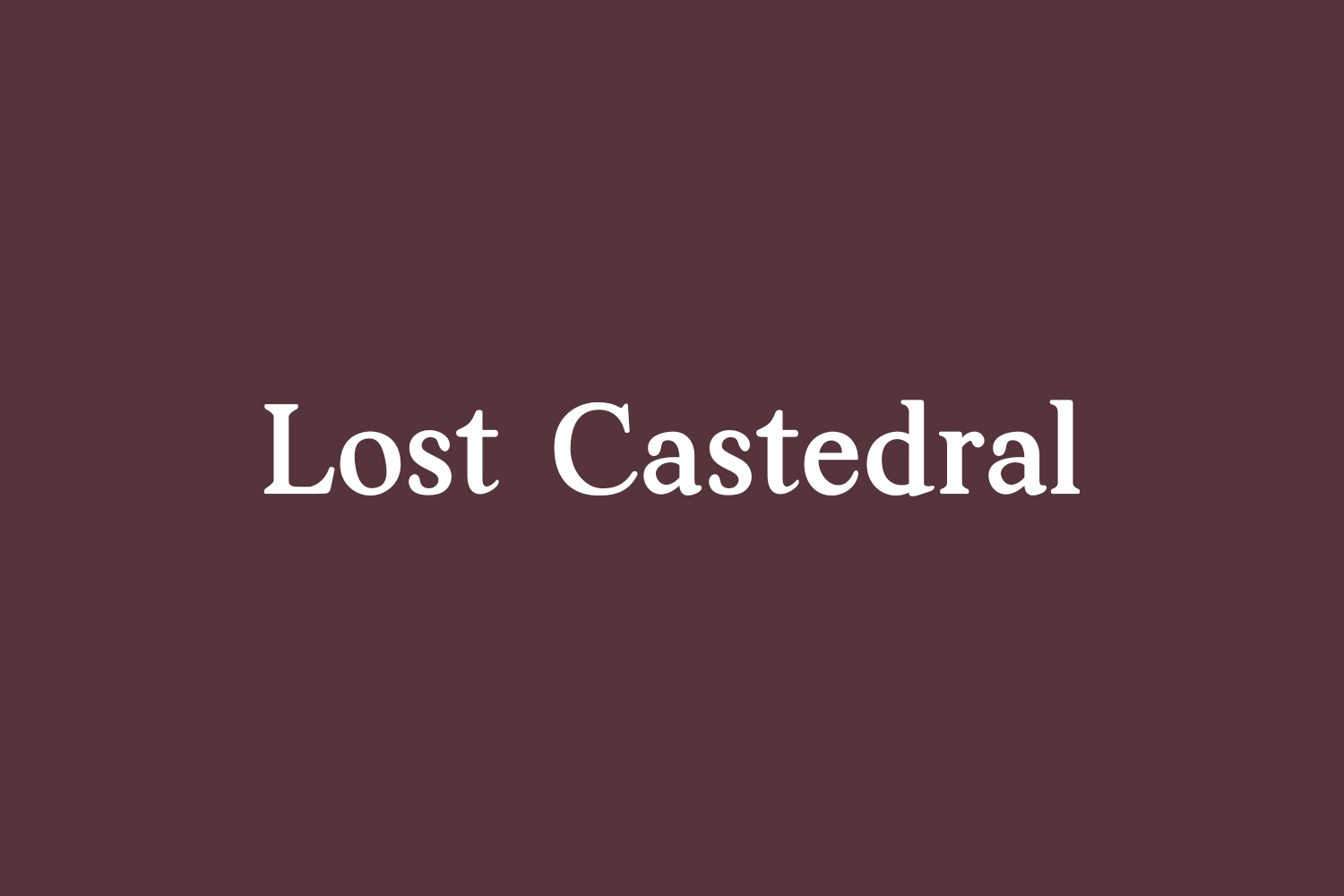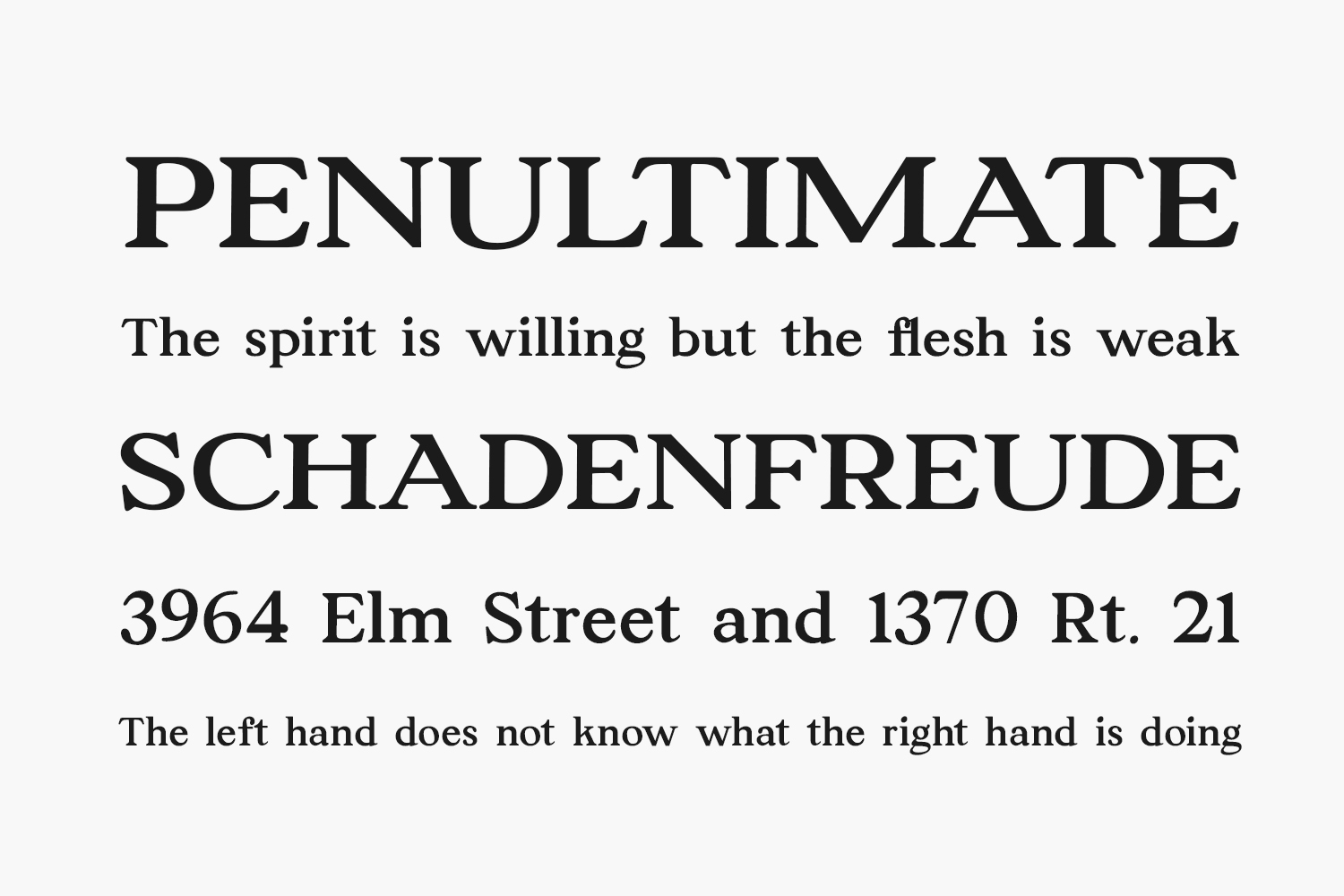
Lost Castedral Free Font is a modern and stylish serif font. Add it to any of your designs, and enjoy the results. Lost Castedral Free Font is free for personal use only. Please purchase the full version for commercial use.